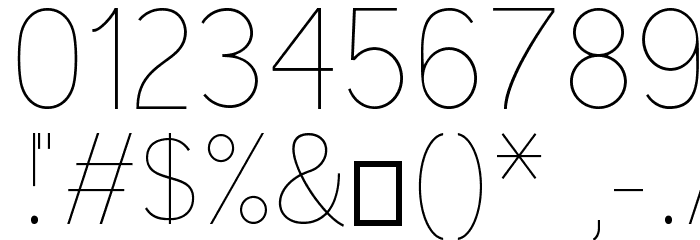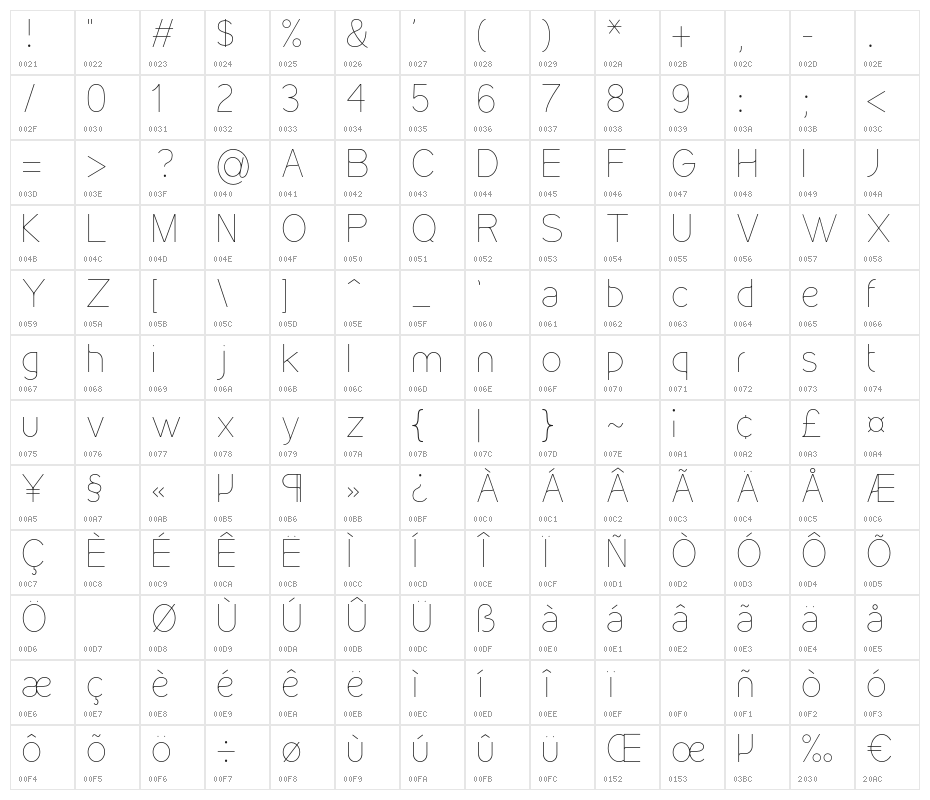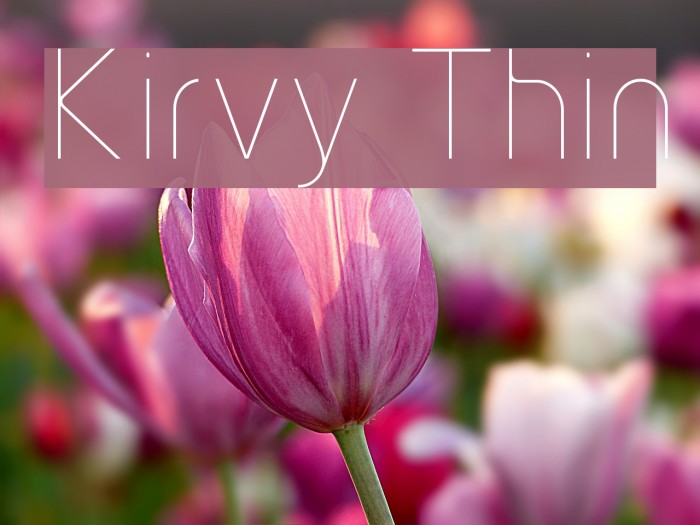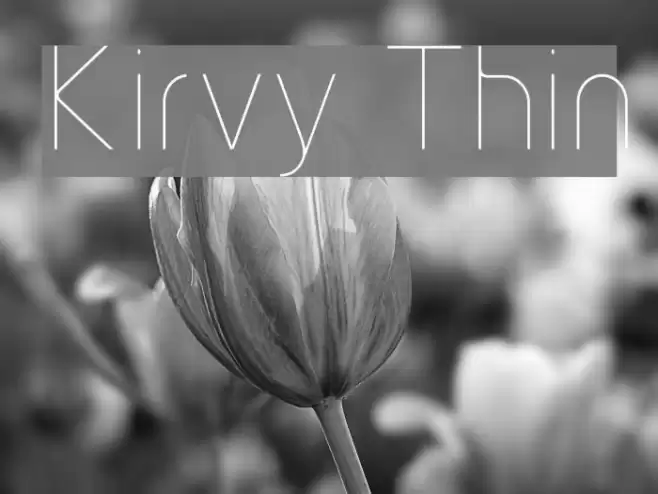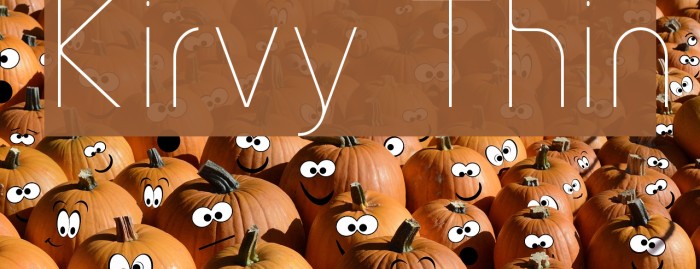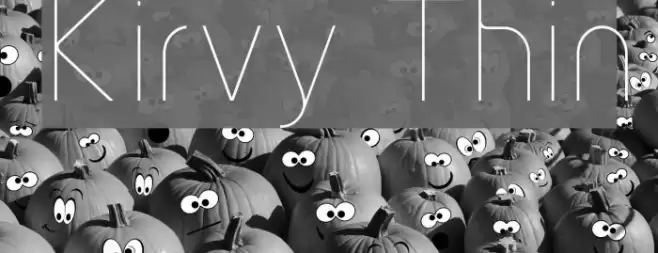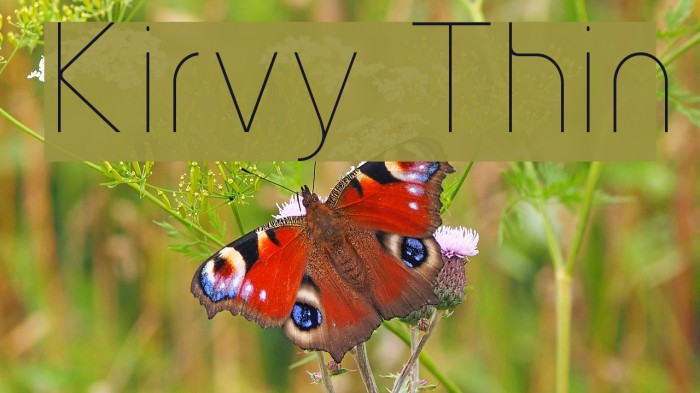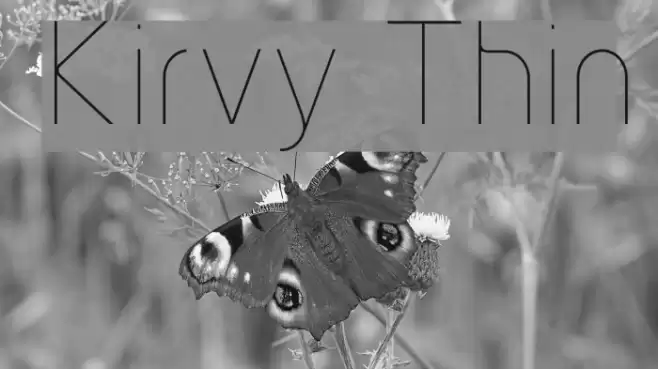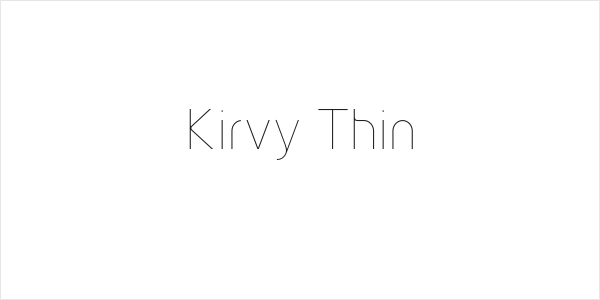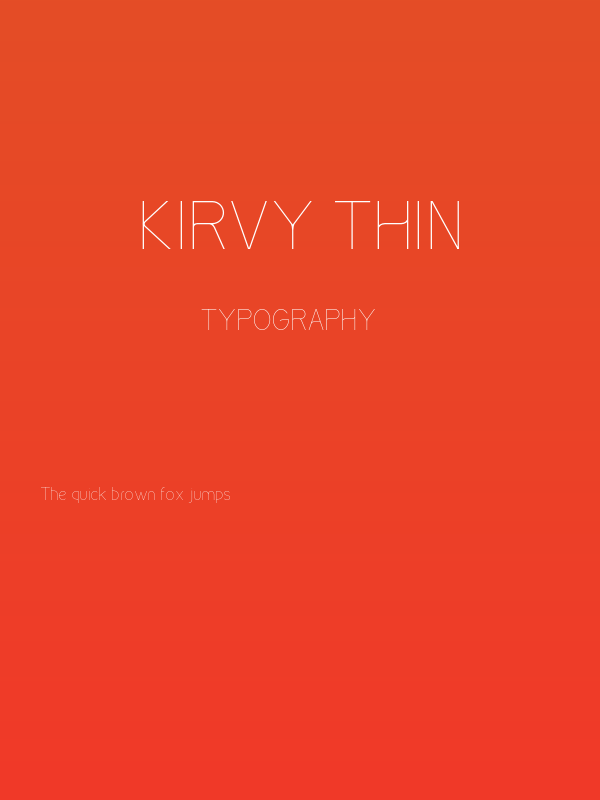
Kirvy Thin Font
Kirvy Thin Description
This font features a sleek and modern design with thin, clean lines that give it an elegant and minimalist appearance. The characters are evenly spaced, providing a balanced and harmonious look. The uppercase letters are tall and narrow, while the lowercase letters maintain a consistent height, contributing to the font's uniformity. The numerals are clear and legible, matching the overall aesthetic. Special characters are distinct and integrate seamlessly with the alphabetic characters, enhancing the font's versatility. This style is perfect for projects that require a contemporary and sophisticated touch.